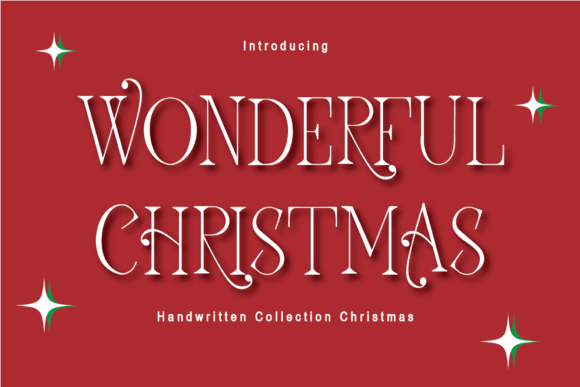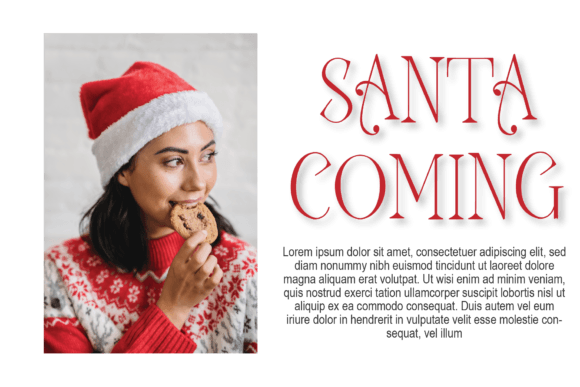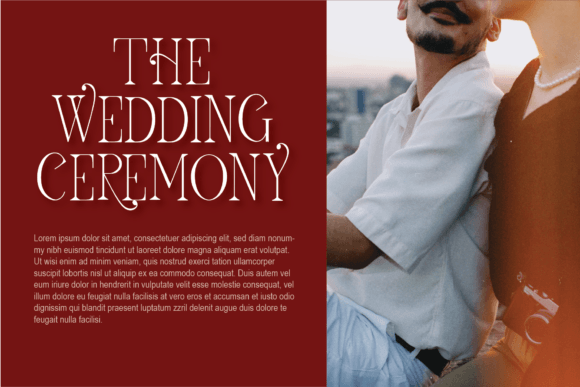
Wonderful Christmas Font
Experience the festivity with the charming Wonderful Christmas font! This delightful typeface is masterfully designed to infuse your projects, Christmas cards, and decorations with an extra sprinkle of holiday magic. By leveraging the captivating allure of the Christmas Greetings Font, your projects will flawlessly reflect the holiday spirit. Unveil the enchantment of your projects with this elegant typeface and watch the magic come alive!